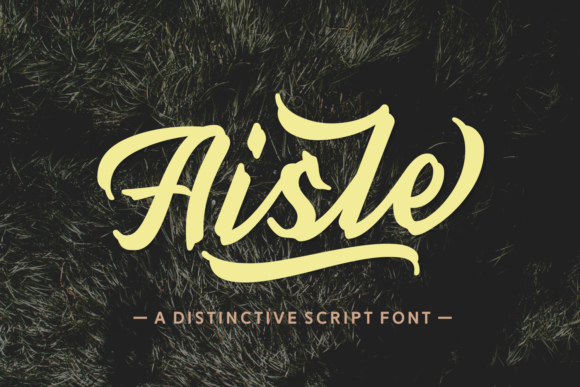
The Retro Charm of Aisle Font: A Designer’s Delight
I still remember the design project that led me to discover the lovely Aisle font. I was working on a vintage-themed branding project for a client, and I was struggling to find the perfect font that would capture the essence of the 1950s and 60s. The client wanted something bold, yet elegant, and I was on a mission to deliver. That’s when I stumbled upon Aisle, a stunning vintage font that instantly won my heart.
With its bold, retro charm, Aisle font brought my design project to life. The authentic feel of the font transported me back in time, and I knew I had found the perfect fit. In this article, I’ll share my experience with Aisle font, its features, and how to make the most of it in your design projects.
An Honest Review of Aisle Font
What I Love About Aisle Font
- ✨ Authentic vintage feel: Aisle font has a truly retro charm that will transport your designs back in time.
- ✅ Bold and eye-catching: The font’s bold style makes it perfect for headlines, titles, and emphasis.
- 💡 Highly versatile: Aisle font can be used in a variety of design projects, from branding and advertising to crafting and DIY projects.
- 🎨 Great for creative projects: The font’s unique character makes it ideal for creative projects, such as illustrations, comics, and graphic novels.
While Aisle font is an excellent choice for many design projects, there are a few things to keep in mind:
- ⚠️ Not suitable for body text: Due to its bold style, Aisle font may not be the best choice for body text or long paragraphs.
The Backstory of Aisle Font
Aisle font was designed by a talented type designer who drew inspiration from vintage fonts of the 1950s and 60s. The designer’s goal was to create a font that would capture the essence of a bygone era, while still being highly legible and versatile. The result is Aisle font, a stunning retro-style font that’s perfect for a wide range of design projects.
| Font Name | Aisle Font |
| Author | Dani (7NTypes) |
Q: What is Aisle font?
A: Aisle font is a vintage-style font with a bold, retro charm that’s perfect for a wide range of design projects.
Q: What design projects is Aisle font best suited for?
A: Aisle font is perfect for a wide range of design projects, including branding, advertising, crafting, DIY projects, and creative projects like illustrations and graphic novels.